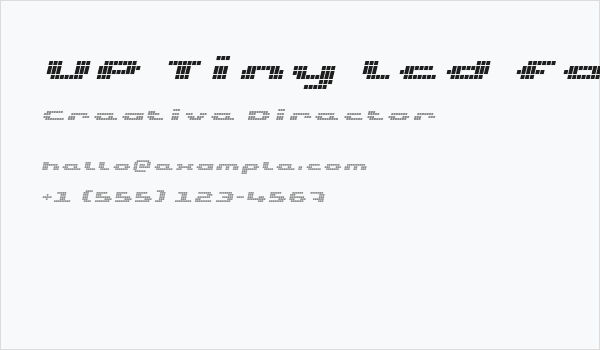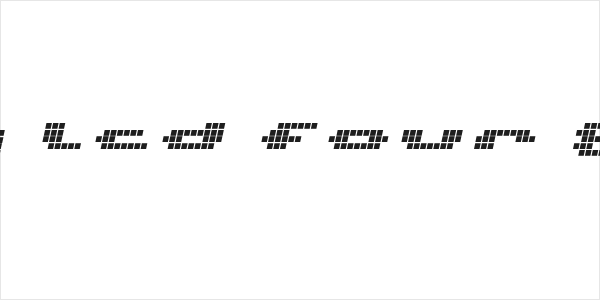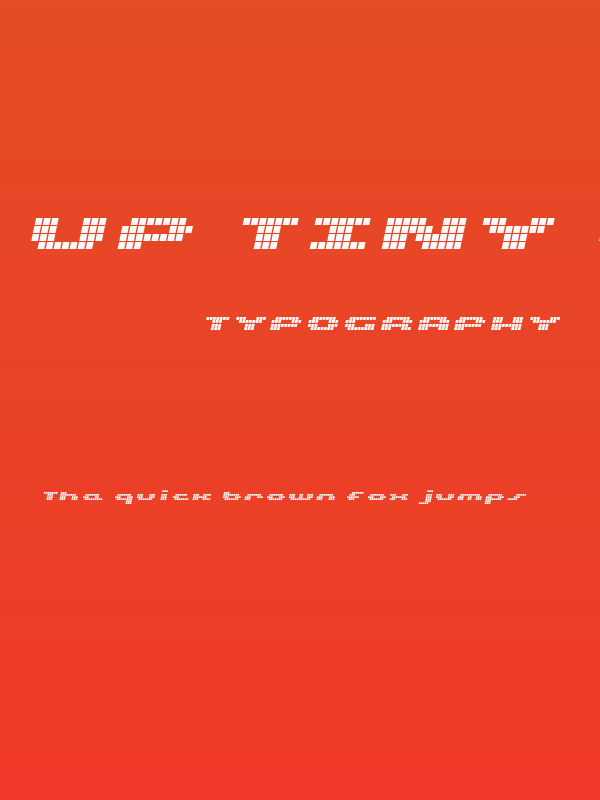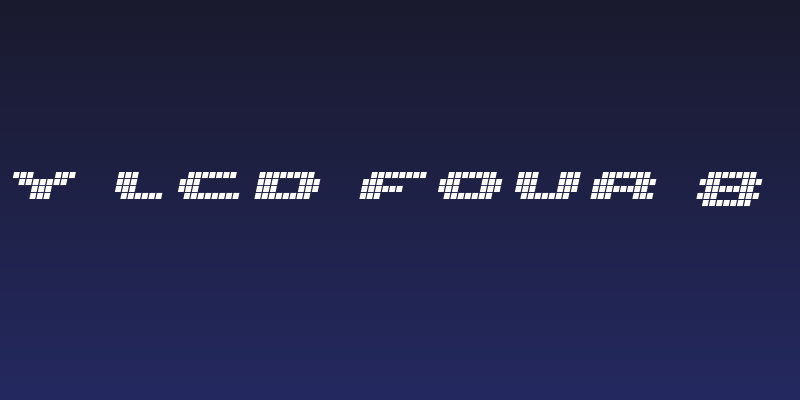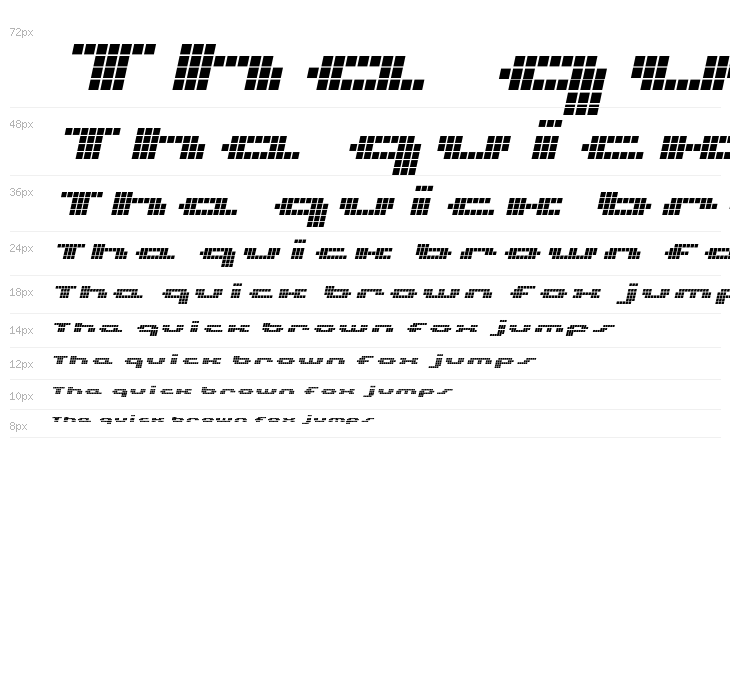
UP Tiny lcd four 8 Italic Font
UP Tiny lcd four 8 Italic Description
This font features a distinct pixelated design reminiscent of old LCD displays, creating a retro digital aesthetic. Each character is constructed from a grid of small squares, giving it a blocky and geometric appearance. The italic style adds a dynamic slant to the characters, enhancing the sense of movement and modernity. The uppercase and lowercase letters maintain consistent proportions, while the numerals and special characters are clearly defined, ensuring readability. This font's unique style is ideal for projects that require a nostalgic or tech-inspired look.
| Overall Style | Retro, Digital |
| Use Case | Headlines, Logos, Digital displays |
| Proposed Projects | Ideal for digital art, retro-themed designs, video game graphics, and tech-inspired branding. |